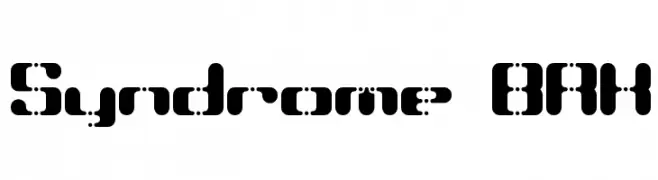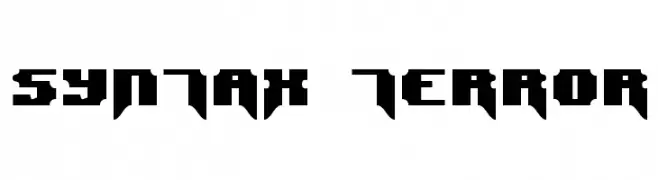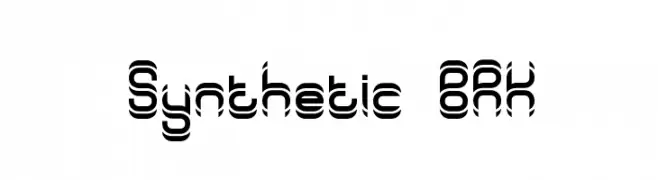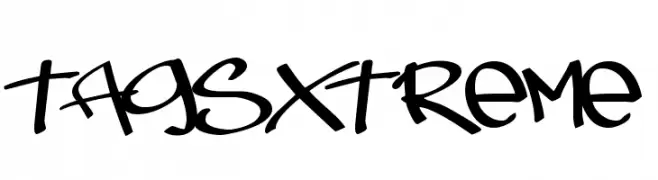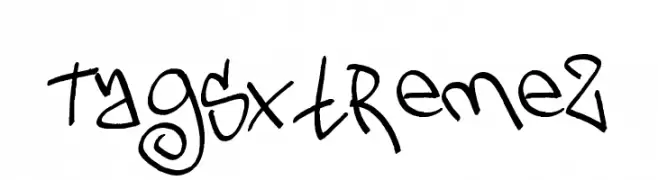
A bold, geometric font with a futuristic and industrial design.
A bold, angular font with a futuristic and edgy design.
A futuristic, geometric font with bold, structured characters.
A dot matrix style font with a digital, retro feel.
A bold, graffiti-inspired font with dynamic strokes and high contrast.
A bold, graffiti-inspired font with a playful and energetic style.